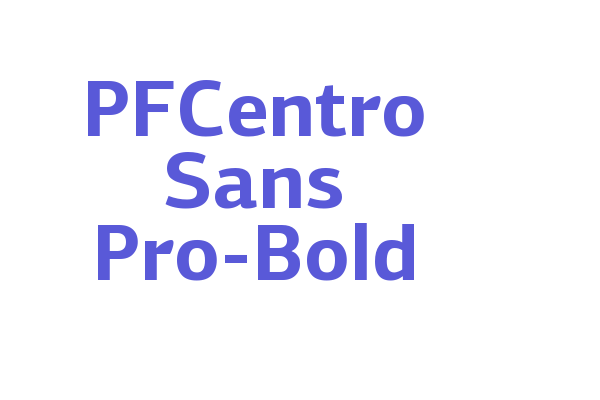
PFCentro Sans Pro-Bold is a bold sans-serif font designed by Panos Vassiliou. Part of the PF Centro Sans Pro font family, this typeface is ideal for creating bold and impactful designs. Its clean and modern style makes it perfect for a wide range of projects, from branding to editorial design.
Font Name: PFCentro Sans Pro-Bold
Designer: Panos Vassiliou
Font Family: PF Centro Sans Pro